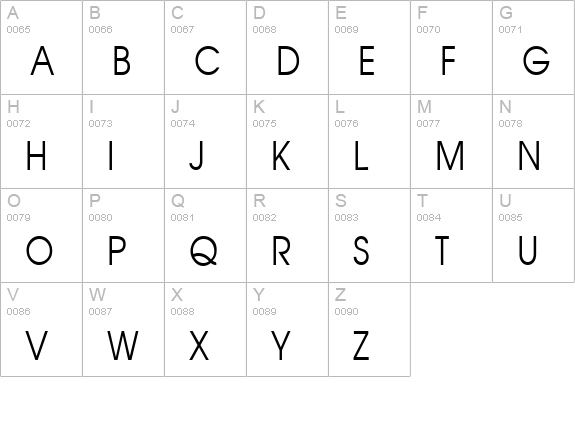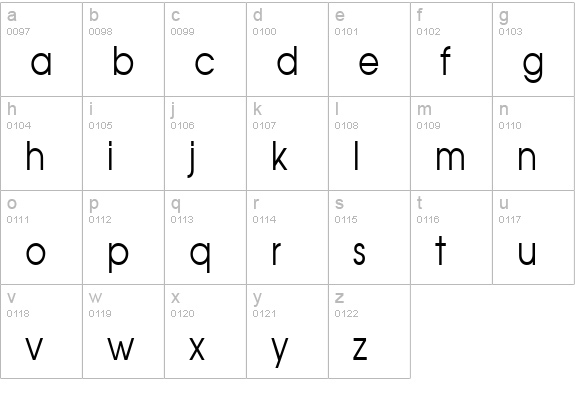
Atilla Condensed Normal is the standard, neutral, condensed-width variant in the Atilla typeface family \xE2\x80\x94 well suited to general body text, paragraphs, and standard typographic work.
Atilla Condensed Normal font is a sleek and modern typeface that exudes sophistication and versatility. Its condensed design allows for efficient use of space while maintaining readability and impact. With clean lines and a contemporary aesthetic, Atilla is perfect for a wide range of design projects, from branding and advertising to editorial and web design. The best part? Atilla Condensed Normal font is available for free download at FontsMarket.com. This means you can easily access and use this high-quality font in your projects without any cost. Don't miss out on the opportunity to enhance your designs with the stylish and professional look of Atilla Condensed Normal font. Download it today and elevate your typography game effortlessly.